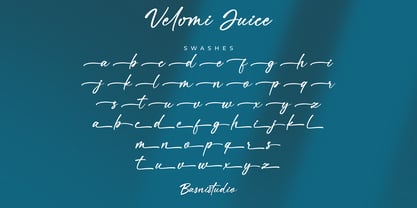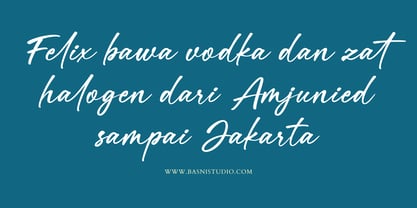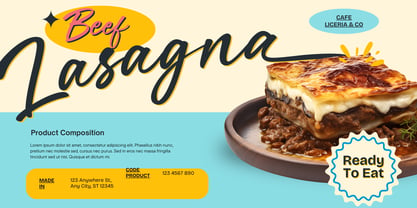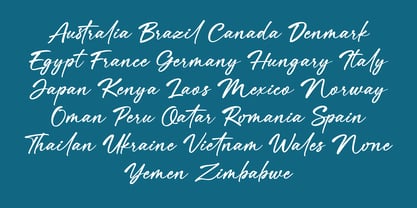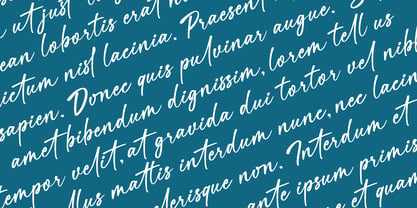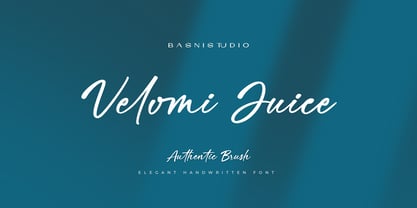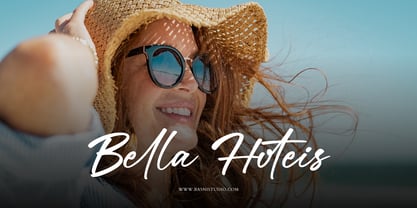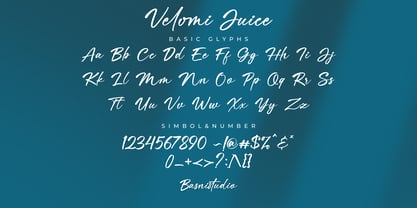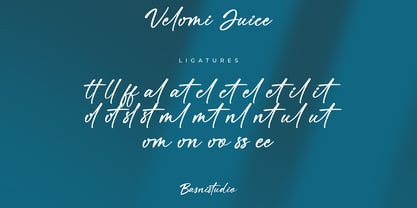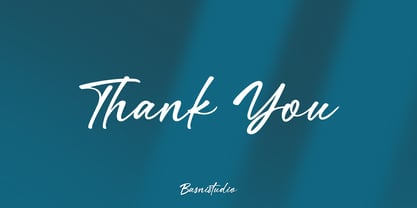
Velomi Juice
by Basnistudio
The Velomi Juice Font Family was designed by Bery Arisandi and published by Basnistudio. Velomi Juice contains 1 styles. More about this family
Velomi Juice– Elegant Handwritten Font Handwritting Font Created with real pen strokes for a natural look and casual touch to everything from branding and social media to invitations and packaging. Natural & Casual – Perfect for tagline, quotes, greeting cards, and more Authentic Handwritten Feel – Created with real pen strokes for a natural look Easy to Use – Works seamlessly with all major design programs Whether you’re building a powerful brand identity or crafting a standout design, Velomi Juice a Elegant Handwritting Font Created with real pen strokes for a natural look gives you the creative edge you need. What’s Included: Uppercase & lowercase letters Swashes ligatures Numbers & punctuation Multilingual Support ( Support for 90 languages ) If you have any questions please don’t hesitate to contact us Thank you
Designers: Bery Arisandi
Foundry: Basnistudio